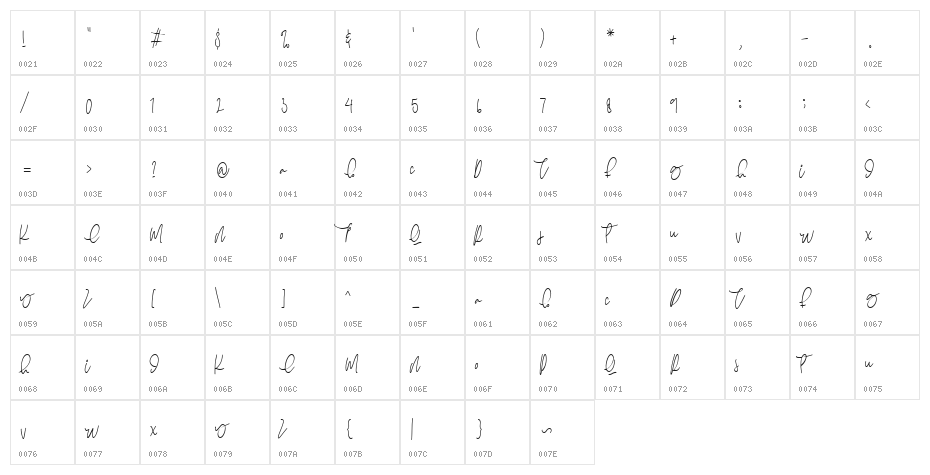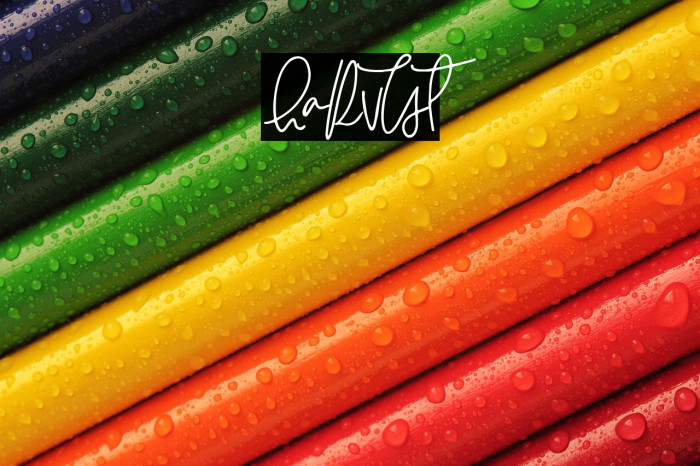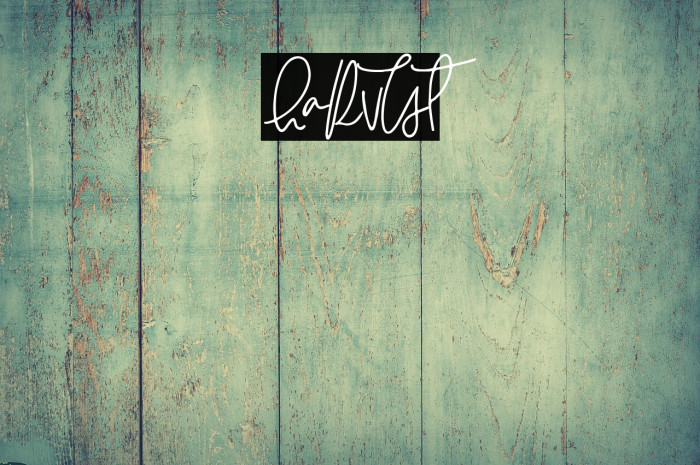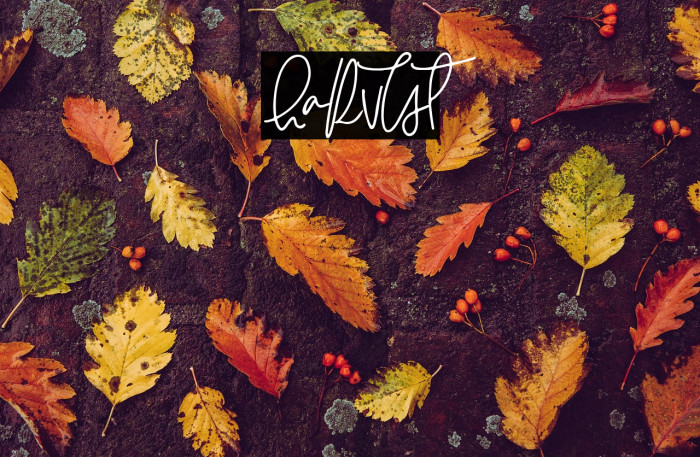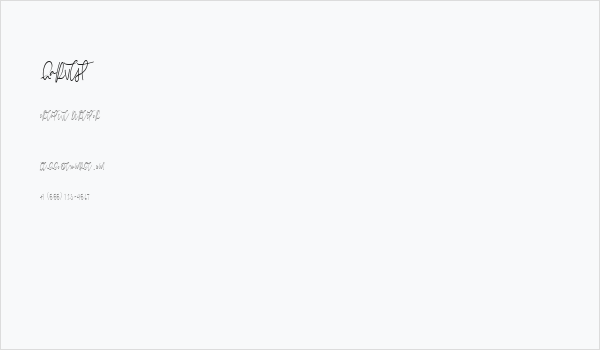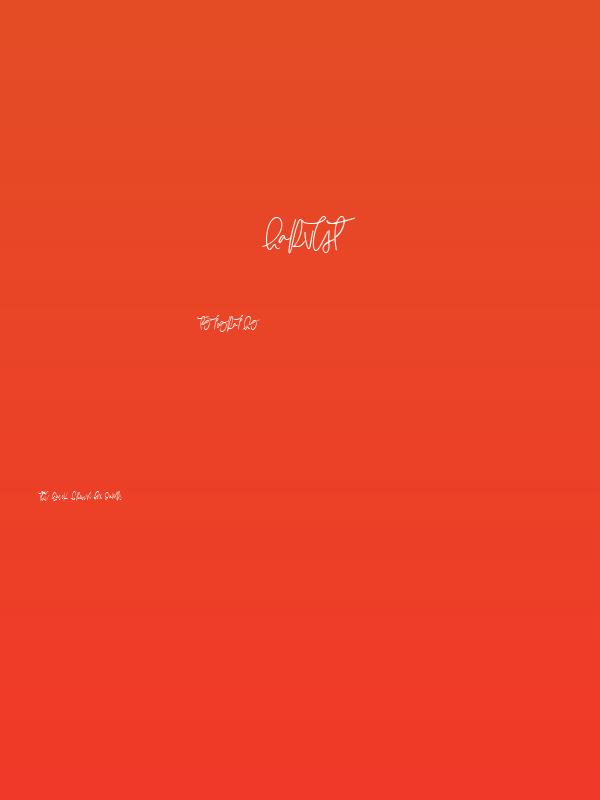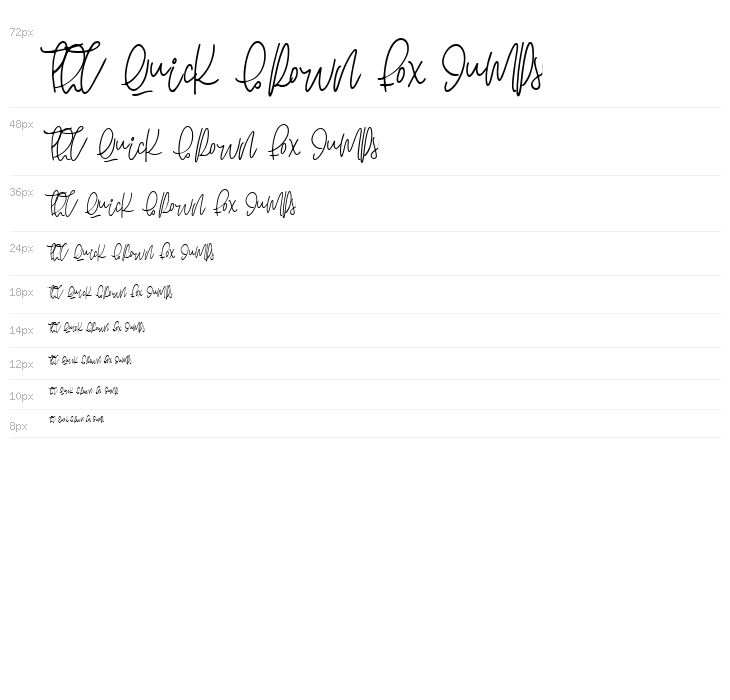
HARVEST Font
HARVEST Description
A loose, flowing handwritten script with irregular, organic letterforms and high variability in stroke direction, evoking a casual and expressive feel. The lines are thin and consistent in weight, with tall ascenders and descenders, and generous spacing between characters.
| Overall Style | Decorative, Artistic, Casual |
| Use Case | Logos, Invitations, Artistic Headlines |
| Proposed Projects | Personal branding, invitations, greeting cards, artistic posters, social media graphics. |